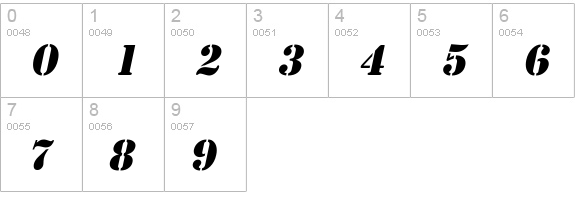
GI Stencil Italic Font Details
GI Stencil Italic is a distinctive, italic variant in the GI typeface family \xE2\x80\x94 well suited to design and typography projects.
The GI Stencil Italic font is a modern and stylish typeface that brings a touch of sophistication to any design project. Its sleek lines and elegant curves give a sense of refinement and class, making it perfect for a wide range of applications. Whether you're designing a logo, creating a poster, or working on a branding project, this font is sure to make a statement. One of the best things about the GI Stencil Italic font is that it is available for free download at FontsMarket.com. This means that you can easily access this high-quality font without having to spend a penny. With its unique style and versatility, the GI Stencil Italic font is a must-have for any designer looking to add a touch of elegance to their work. Download it today and see for yourself the impact it can make on your designs.